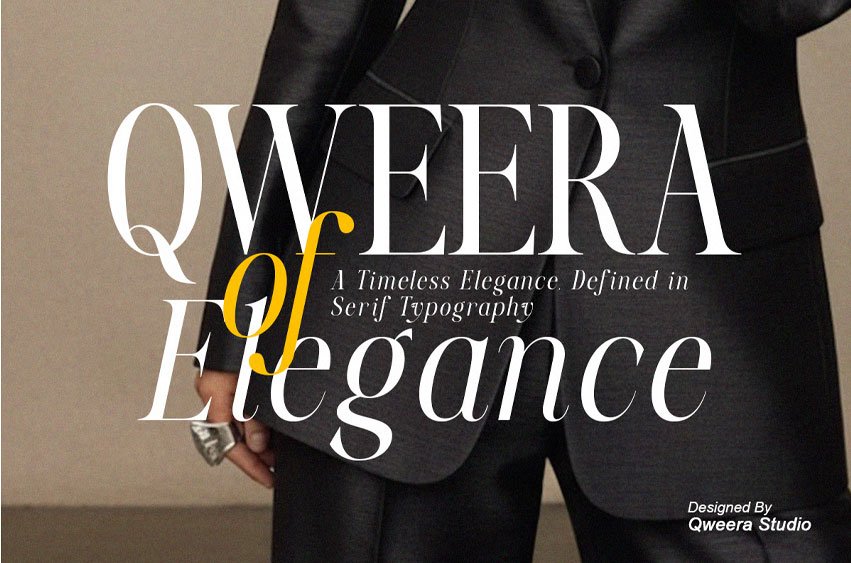
Qweera Of Elegance Font is a timeless serif typeface created to deliver sophistication, refinement, and luxury in every letterform. Inspired by high-end fashion editorials and premium branding aesthetics, this typeface combines graceful proportions with elegant contrast.
Its refined character makes it perfect for luxury logos, fashion campaigns, beauty packaging, editorial headlines, wedding invitations, boutique branding, and premium marketing materials.
Qweera Of Elegance brings classic beauty and modern sophistication together, creating typography that leaves a lasting impression.
- Uppercase & lowercase
- Alternates & ligatures
- Professional kerning
- Regular & Italic
Luxury branding, fashion editorials, beauty packaging, wedding invitations, boutique logos, premium stationery